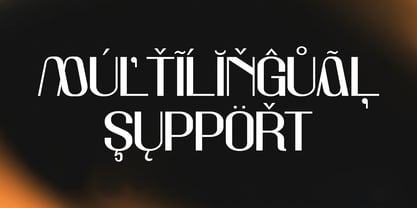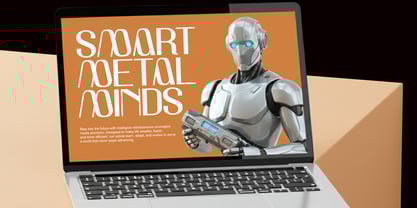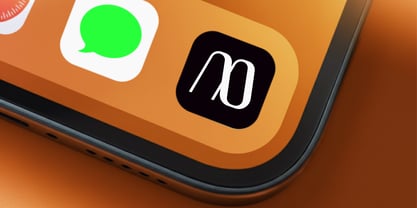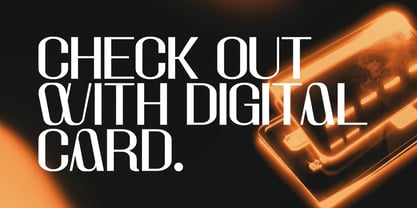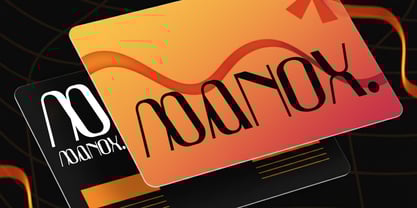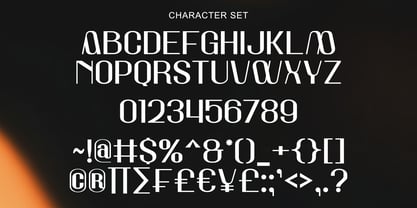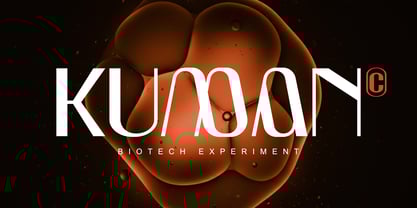
Anmox
by Sealoung
The Anmox Font Family was designed by Saiful Anwar and published by Sealoung. Anmox contains 1 styles.
Anmox – Modern Techno Logo Font Anmox is a futuristic display typeface that blends geometric precision with a smooth, fluid flow — creating a perfect balance between modern minimalism and techno aesthetics. Inspired by innovation, robotics, and digital systems, Anmox is ideal for technology branding, AI projects, modern logos, science fiction titles, and any design that calls for a bold, forward-thinking identity. Each letterform is designed with unique curve transitions and clean edges, giving your design a sleek, high-tech appearance while maintaining perfect legibility. FEATURES Uppercase Letters Numbers & Punctuation Multilingual Support Perfect for Logo, Branding, Posters, Tech Apps, and UI Displays Thank you and best of luck with your designs!